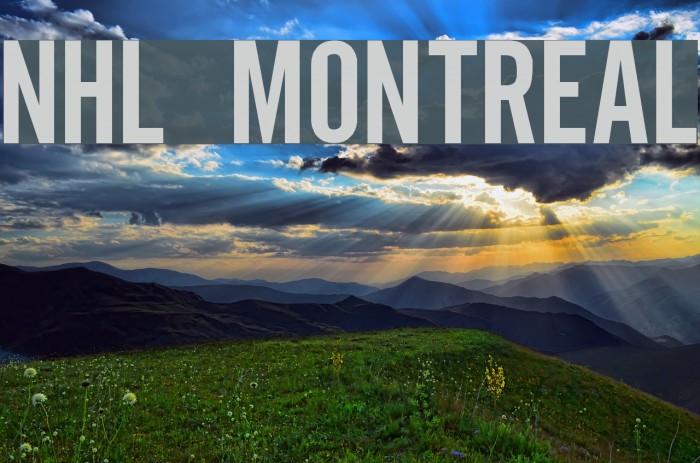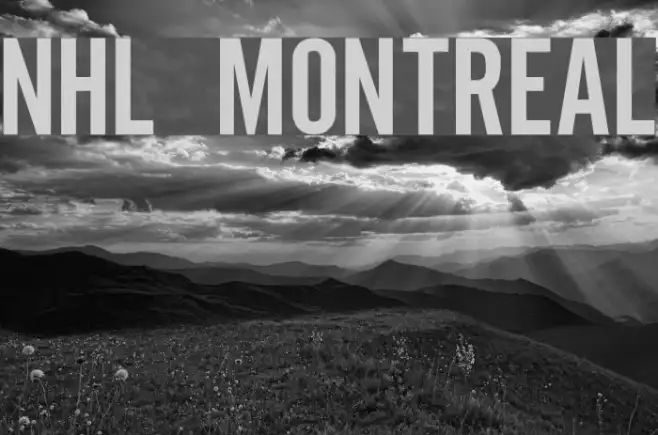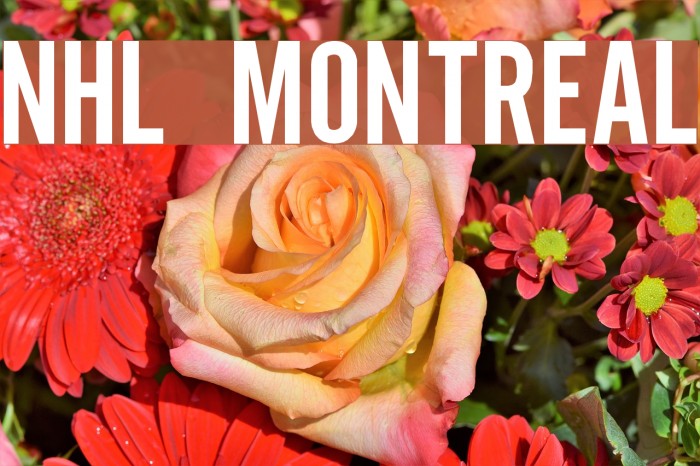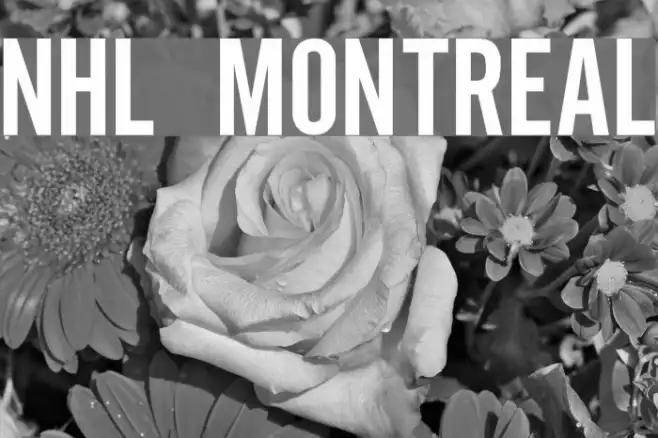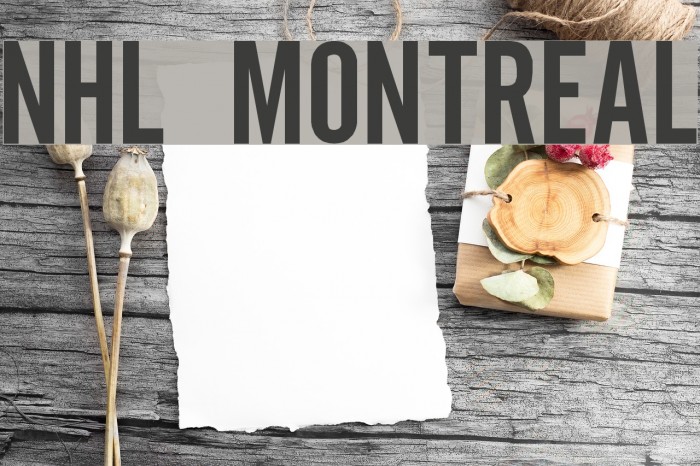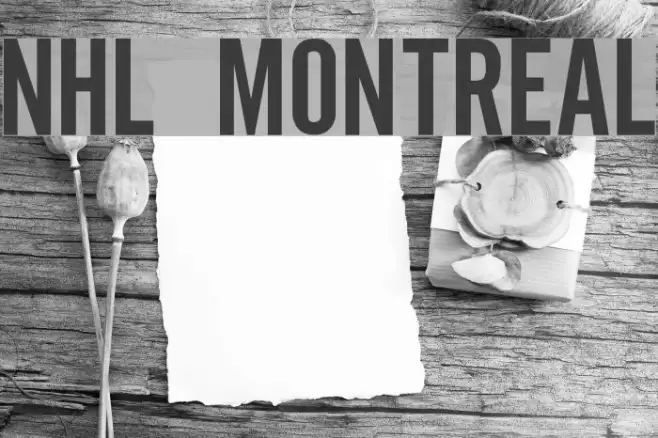
NHL Montreal Font
NHL Montreal Description
This font features a bold and commanding presence with its strong, geometric lines and uniform stroke width. The uppercase letters are tall and narrow, giving a sense of height and authority. The numbers are equally bold, with a consistent thickness that ensures readability. The overall design is clean and modern, making it suitable for a variety of applications where clarity and impact are essential. The font's structure is straightforward, with no additional embellishments, focusing on functionality and style.
| Width | Condensed |
| Use Case | Headlines, Logos, Sports branding |
| Proposed Projects | Ideal for sports branding, posters, headlines, and any project requiring a bold, impactful typeface. |